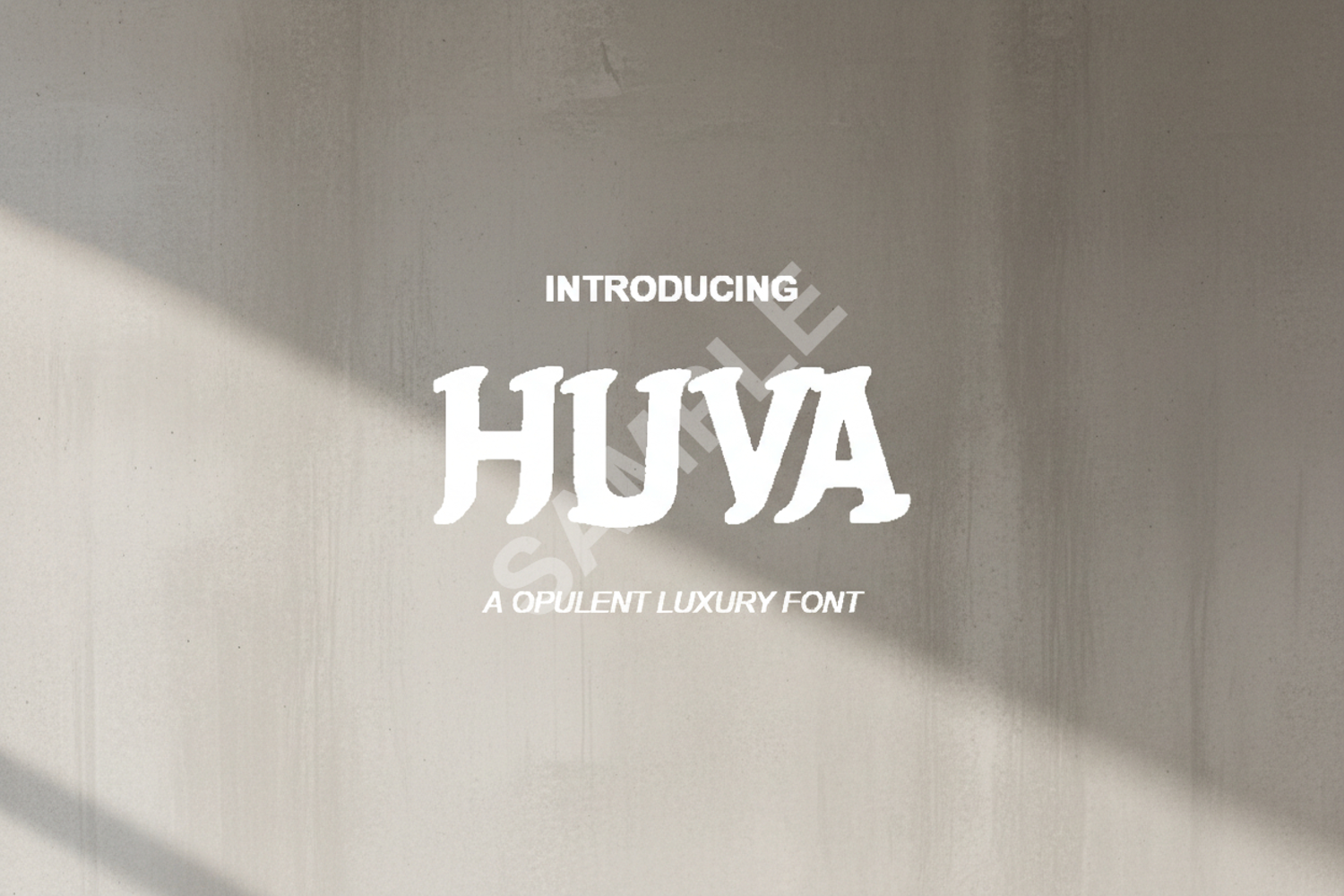
Huva - Modern Minimalist Sans Serif Typeface
Huva
Huva is a premium sans serif typeface that embodies modern minimalism and sophisticated design. Crafted with precision, this font offers a clean and balanced aesthetic that ensures exceptional legibility across various mediums. Whether you are aiming for a high-end corporate look or a sleek contemporary vibe, Huva provides the versatility needed to elevate your creative projects to a professional standard.
- Full set of Uppercase and Lowercase characters
- Comprehensive Numbers and Punctuation
- Multilingual Support for international design needs
- Branding and Visual Identity: Perfect for creating impactful logos and cohesive brand guidelines.
- Editorial Design: Ideal for high-fashion magazine layouts, headlines, and body text.
- Digital Marketing: Enhances social media graphics, promotional banners, and advertisements.
- Web Design: Provides a crisp, readable experience for modern website interfaces.
- Professional Stationery: Adds a touch of elegance to business cards, letterheads, and formal invitations.